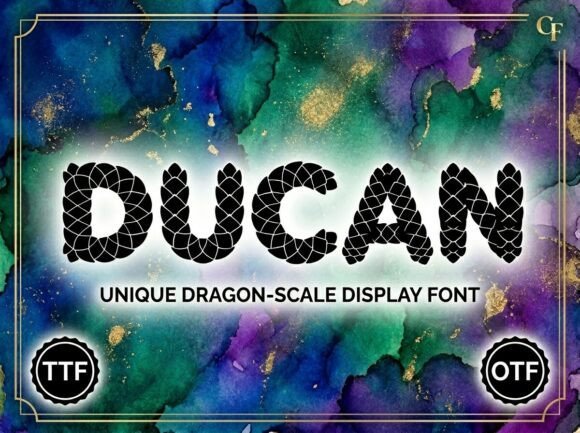
Introduction to Ducan Font
Unleash legendary power with Ducan, a captivating display font inspired by the intricate beauty of mythical dragon scales.
Each character in this massive typeface is meticulously constructed from overlapping, teardrop-shaped scale motifs, creating a high-impact visual of reptilian strength and fantasy craftsmanship The balance between its solid structural stems and the complex internal texture makes it an extraordinary choice for fantasy game titles, dragon-themed branding, epic book covers, and unique merchandise design.
Why Choose Ducan Font?